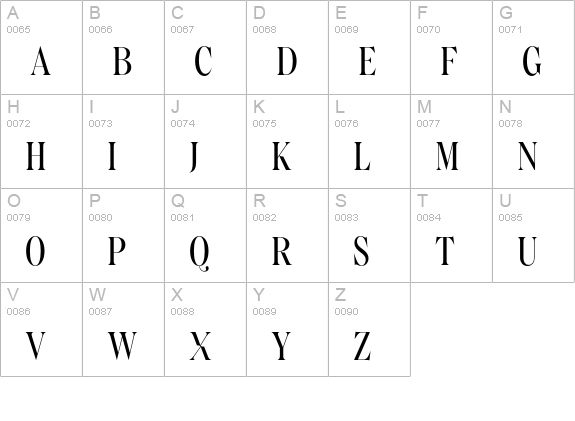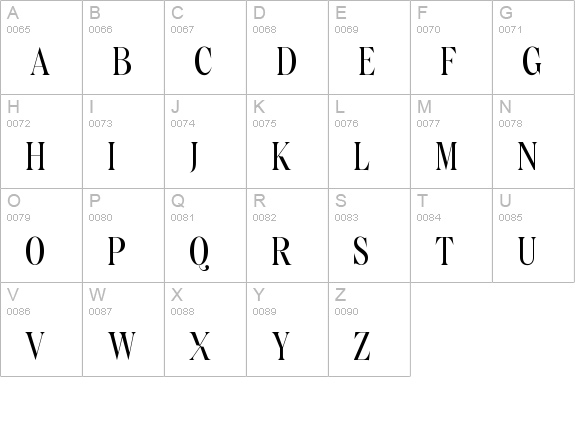
Bolognia Regular is the standard, neutral variant in the Bolognia typeface family \xE2\x80\x94 well suited to general body text, paragraphs, and standard typographic work.
Bolognia Regular font is a sophisticated and elegant typeface that exudes a timeless charm and classic appeal. With its clean lines and balanced proportions, this versatile font is perfect for a wide range of design projects, from branding to editorial design. The Bolognia Regular font is characterized by its legibility and readability, making it an excellent choice for both display and body text.